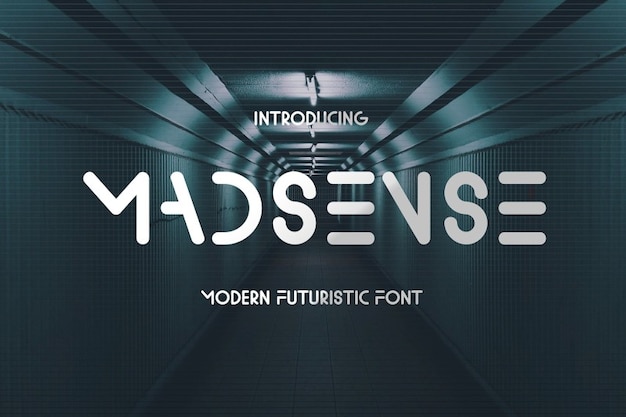
Madsense Font
Madsense is a futuristic font that embodies the essence of modern design with its sleek, tech-inspired aesthetics. Each letter features clean lines and a unique structure, reminiscent of loading screens and digital interfaces. Ideal for technology branding, websites, or creative projects, Madsense conveys a sense of innovation and progress, making it perfect for any design that aims to feel cutting-edge and forward-thinking.